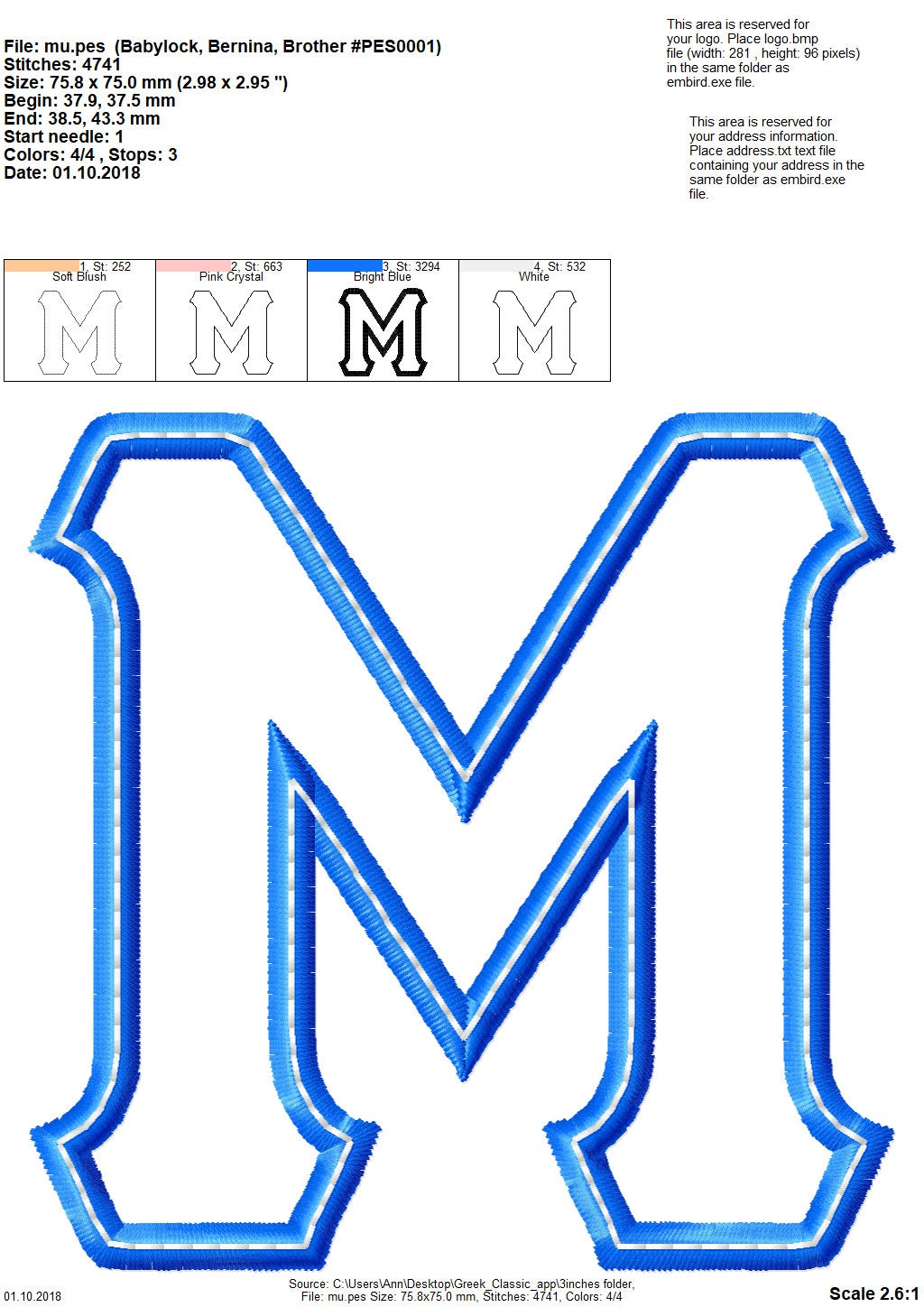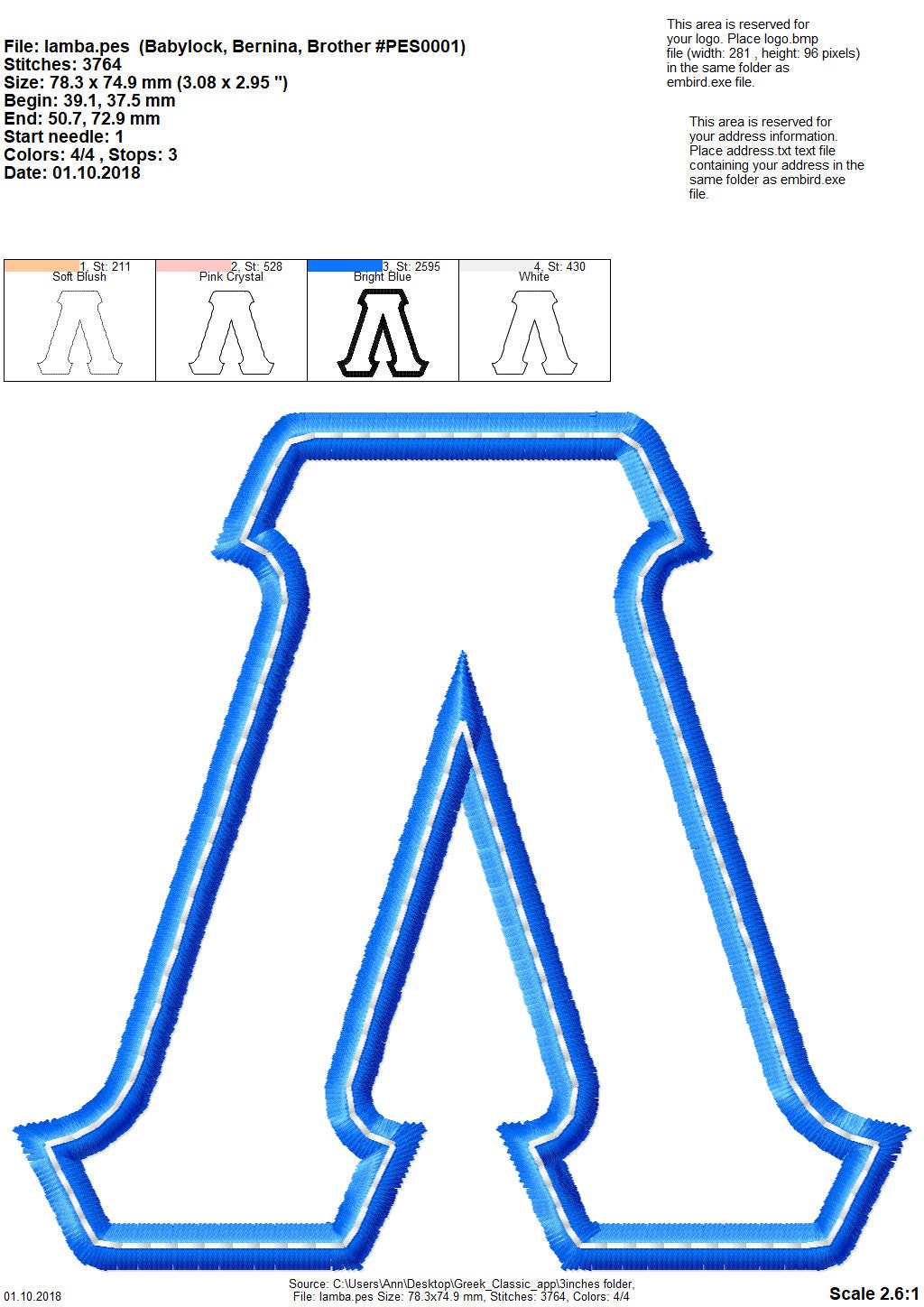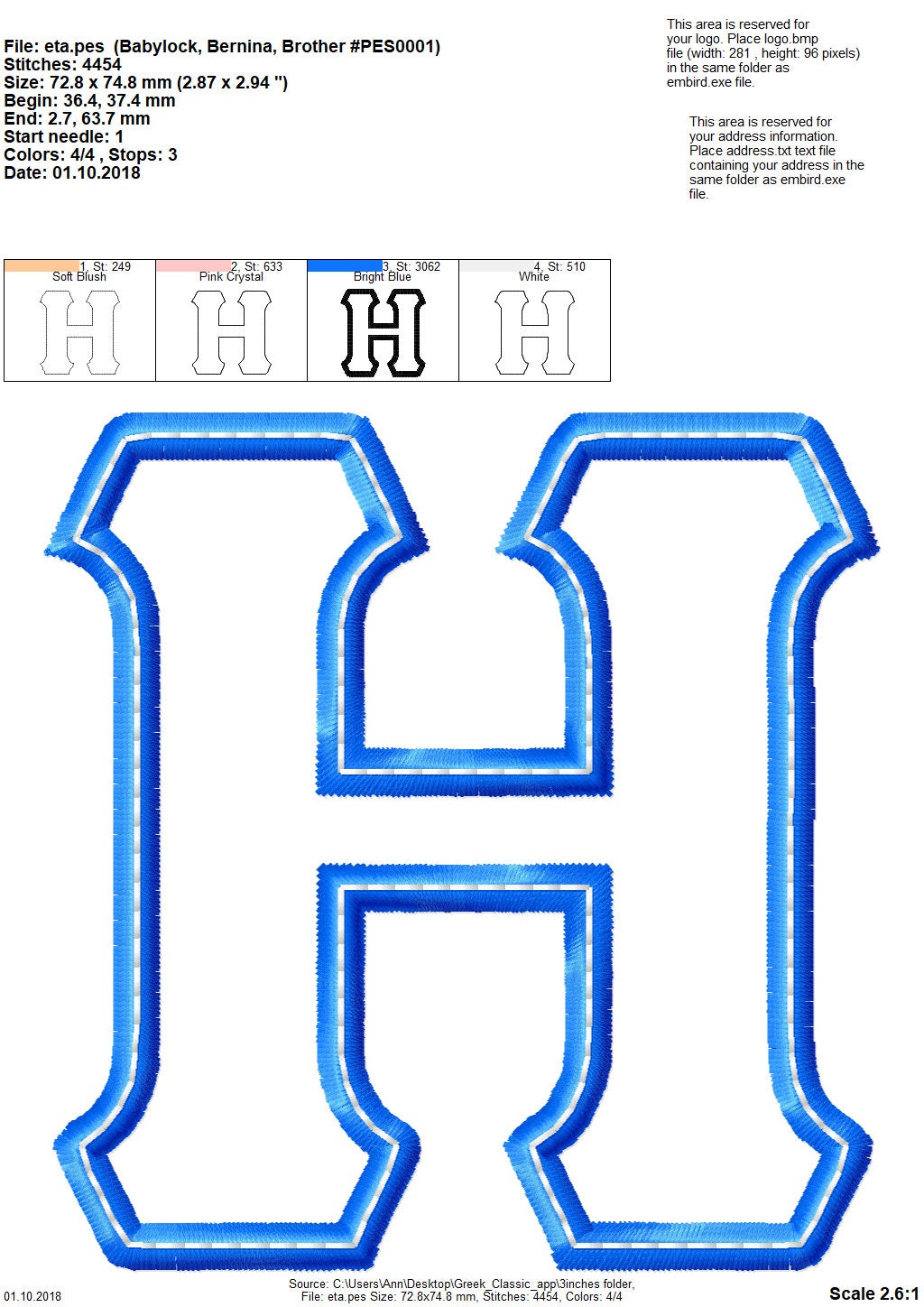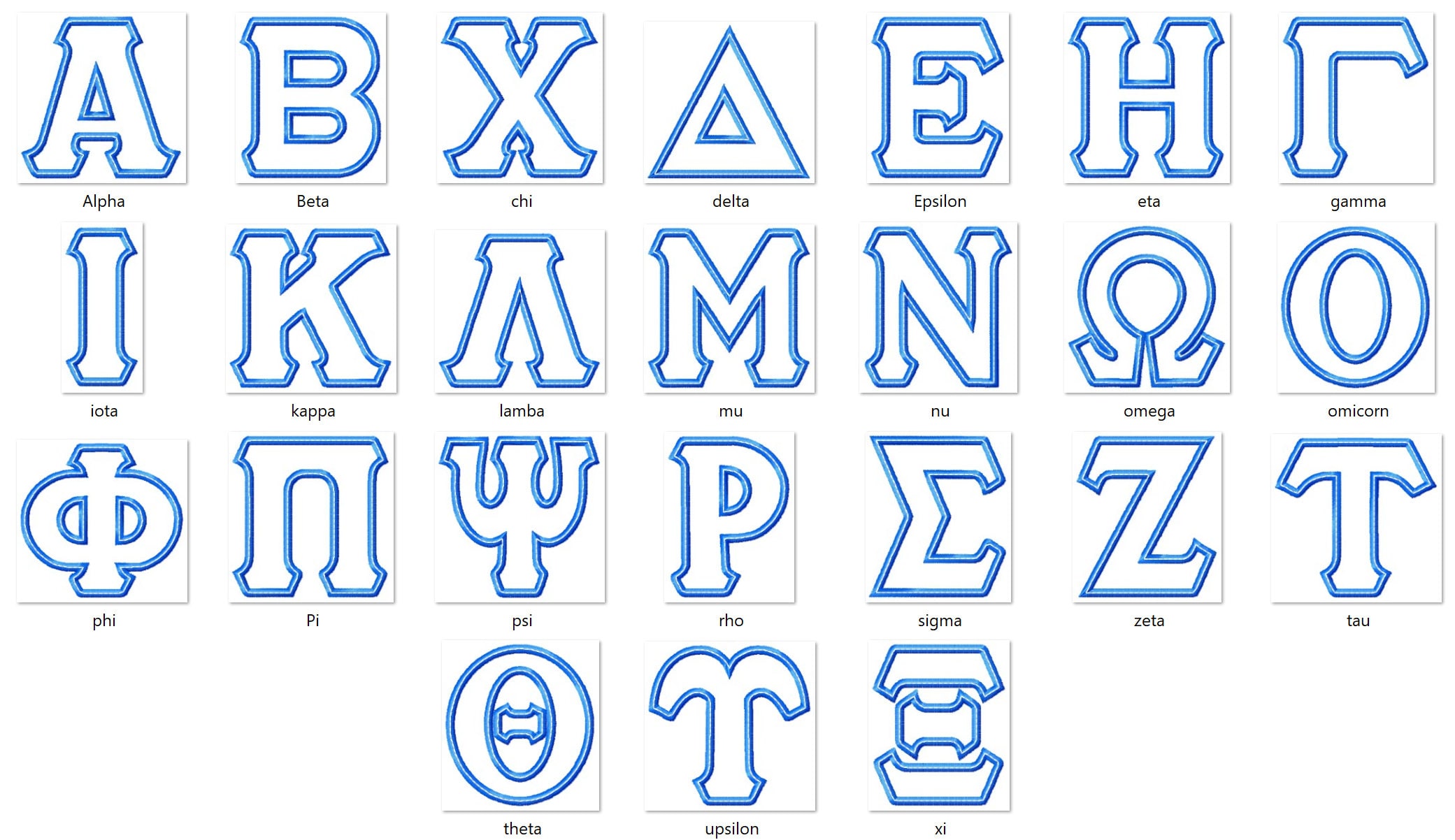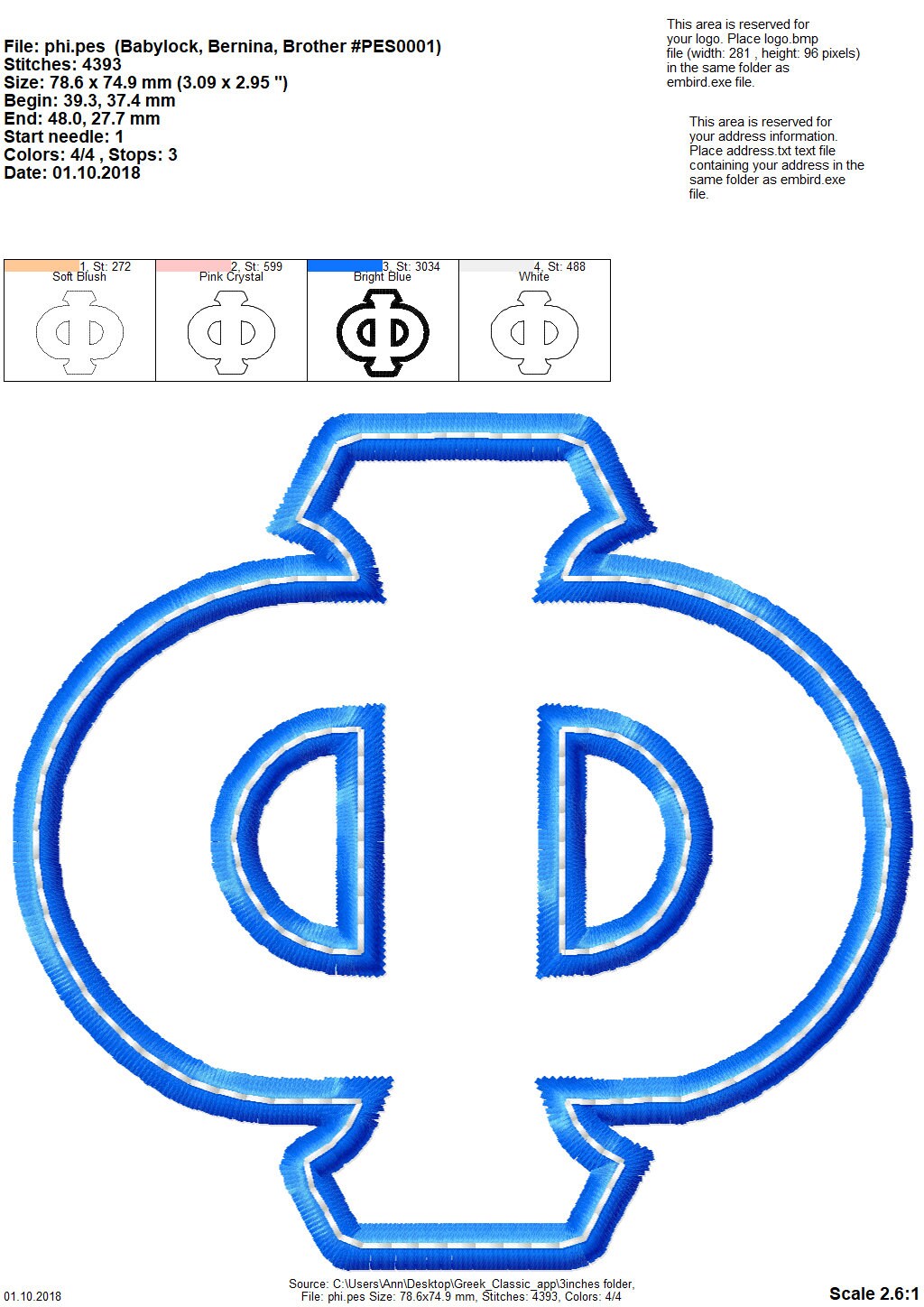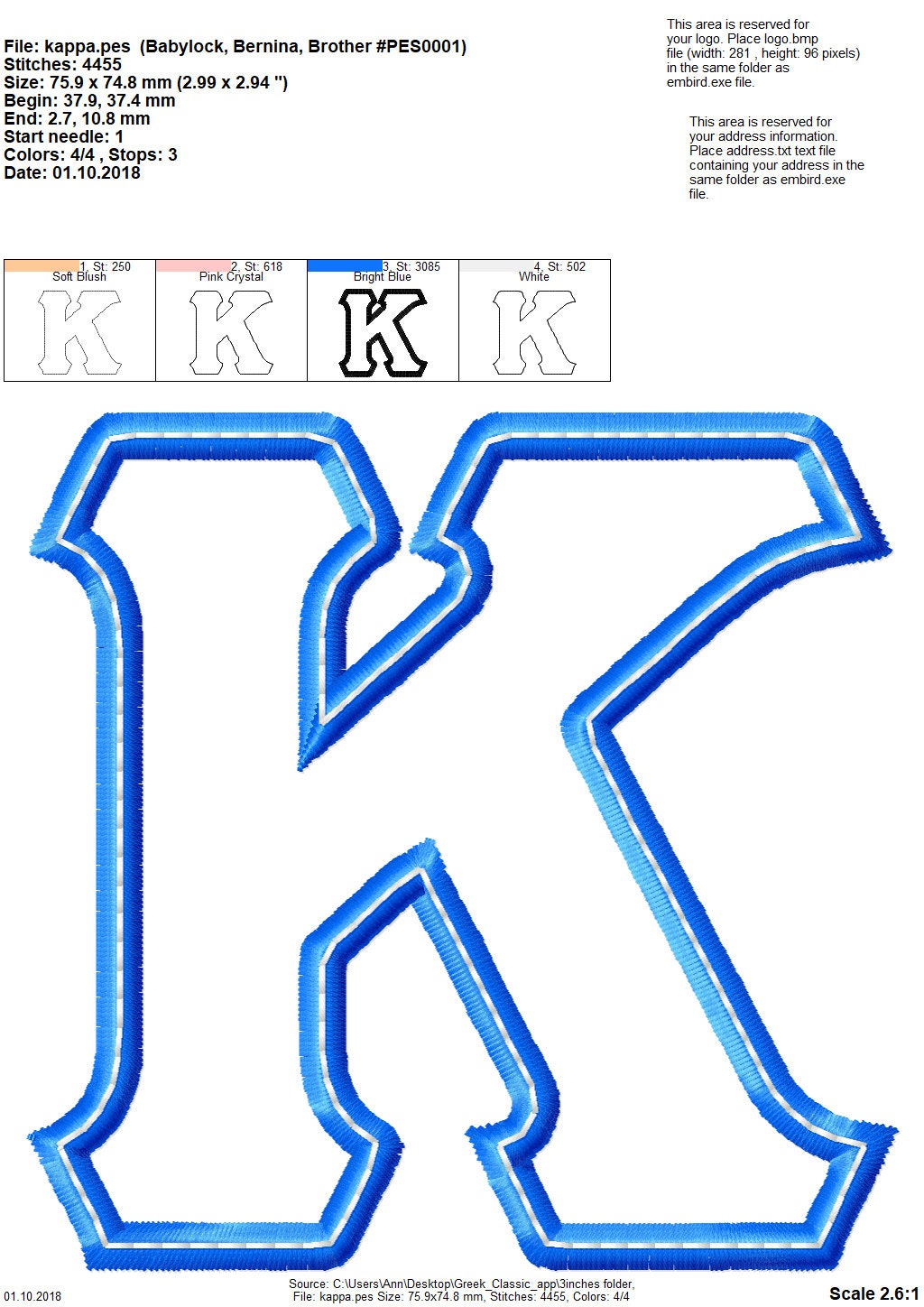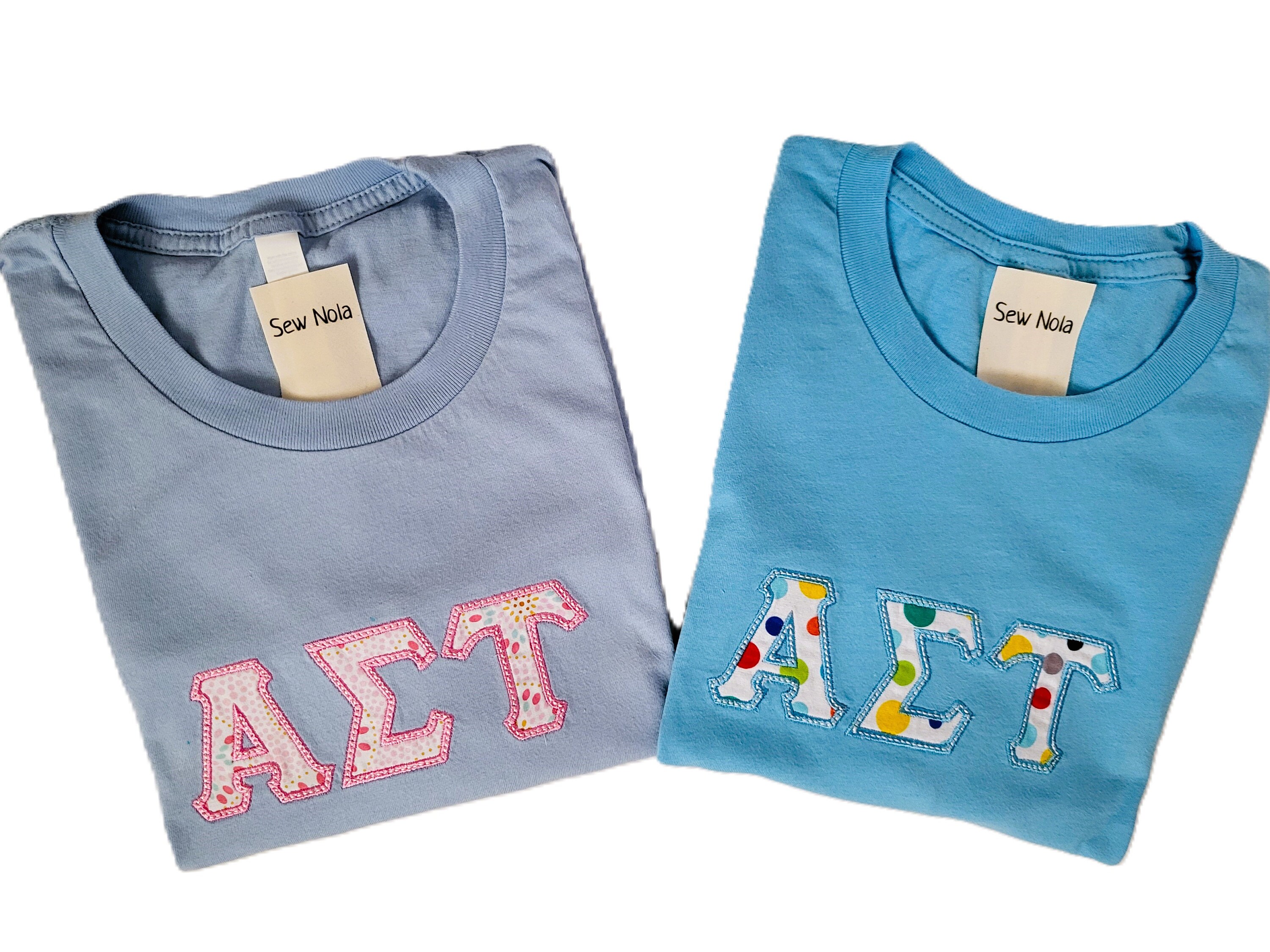
Simple Applique GREEK FONT Greek alphabet Alpha Beta gamma, theta omega kappa font machine embroidery applique designs, monogram name stitch
Applique letters with classic satin stitch and neat top stitch to secure the applique satin stitch in wash!